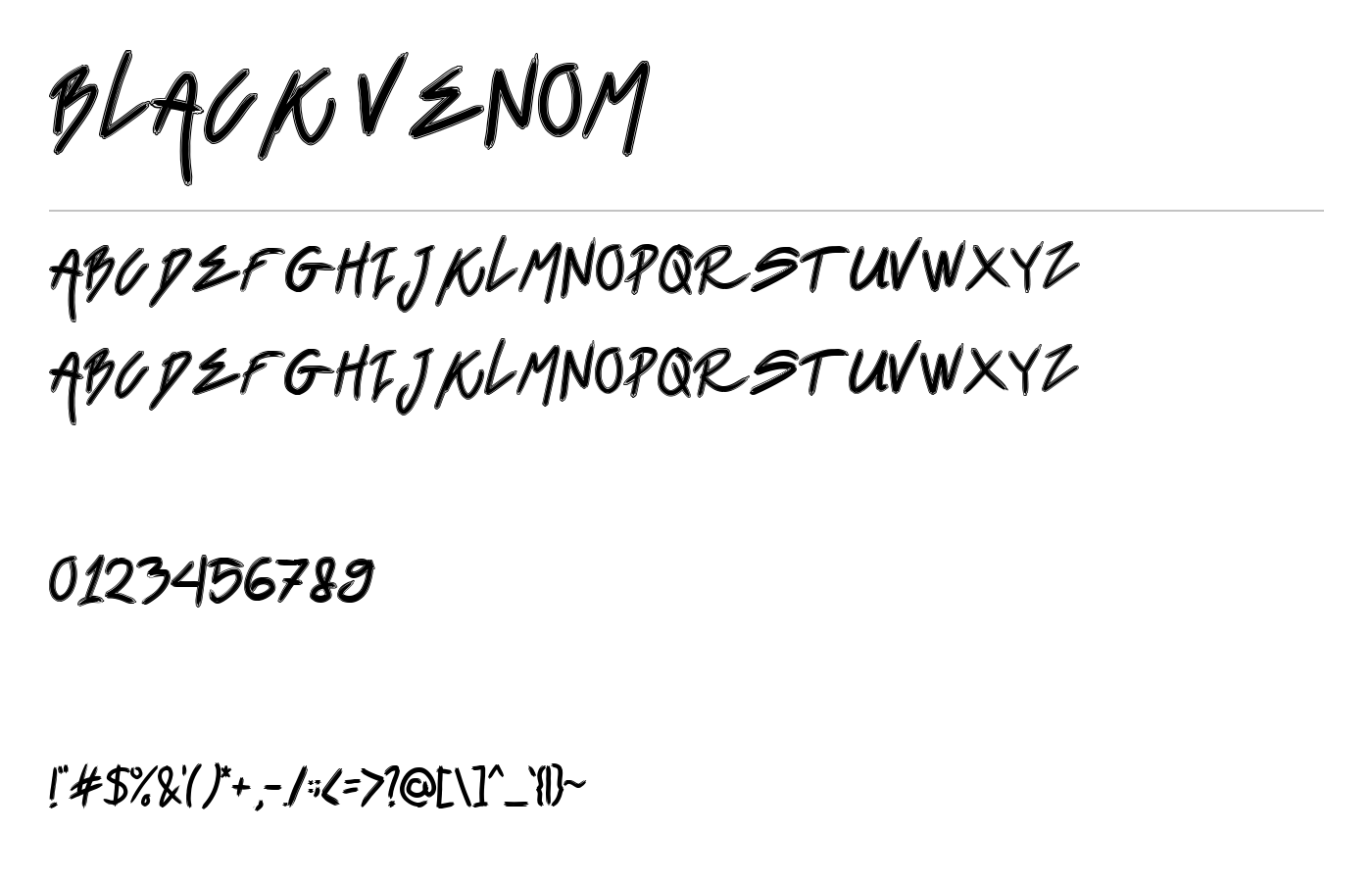
Black Venom is a bold and energetic handwritten font with a rough, brushstroke style that adds a sense of raw, edgy personality. Its uppercase letters feature irregular shapes and dynamic, angular strokes, making it perfect for creative projects that want to stand out with a rebellious or artistic vibe. This font works well in headlines, logos, posters, and branding where a striking, informal, and expressive look is desired.
About Black Venom Font